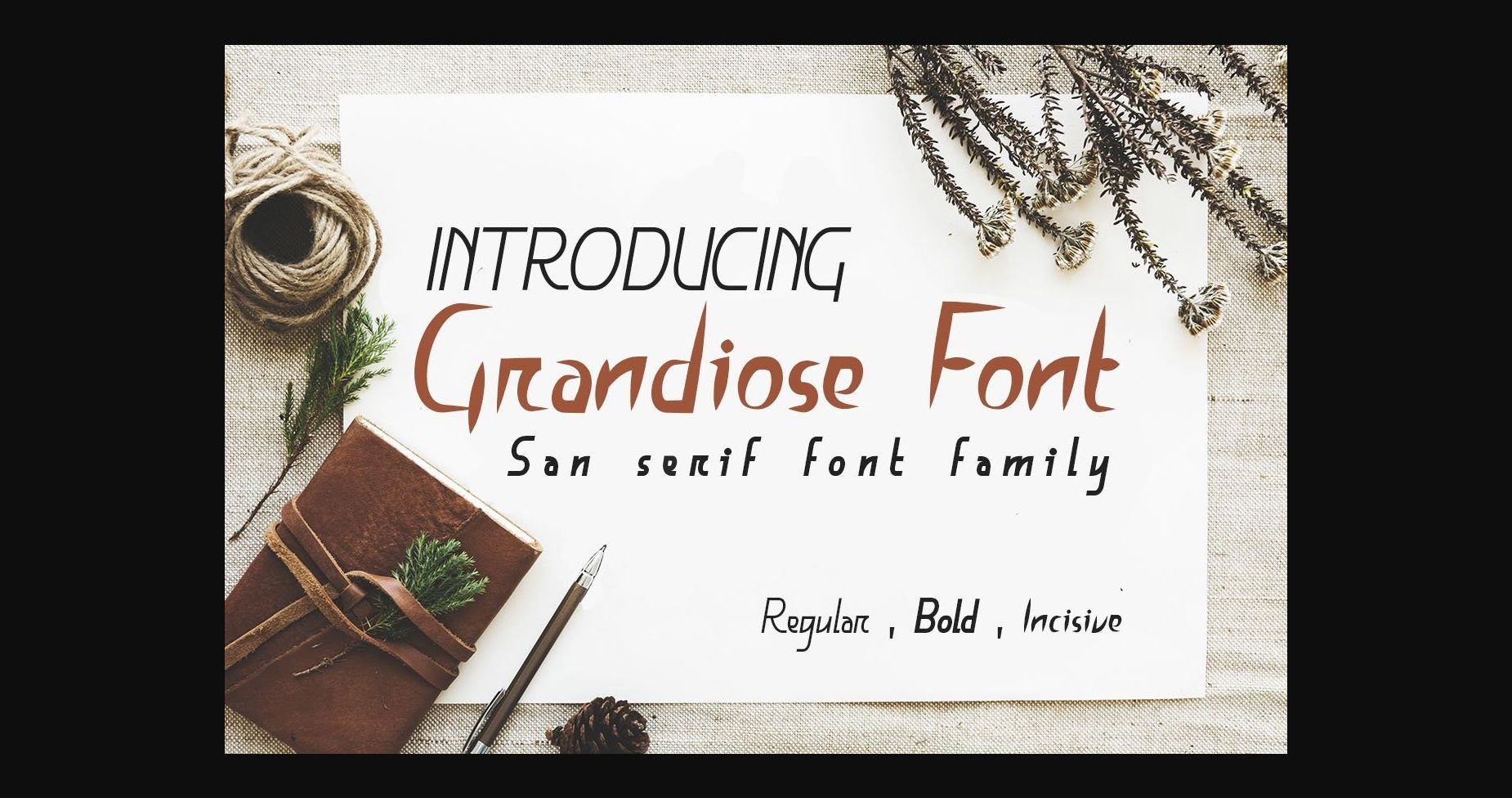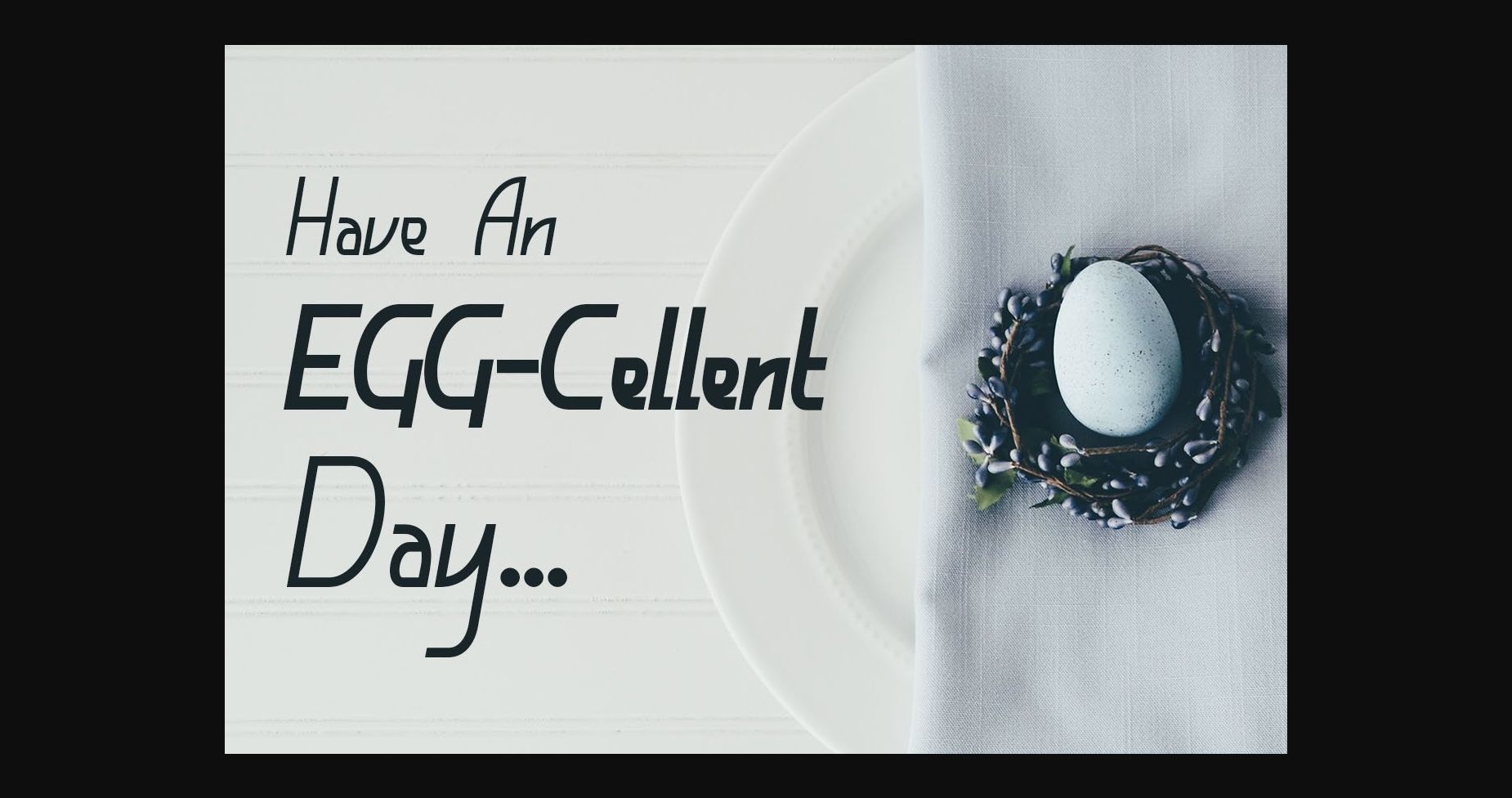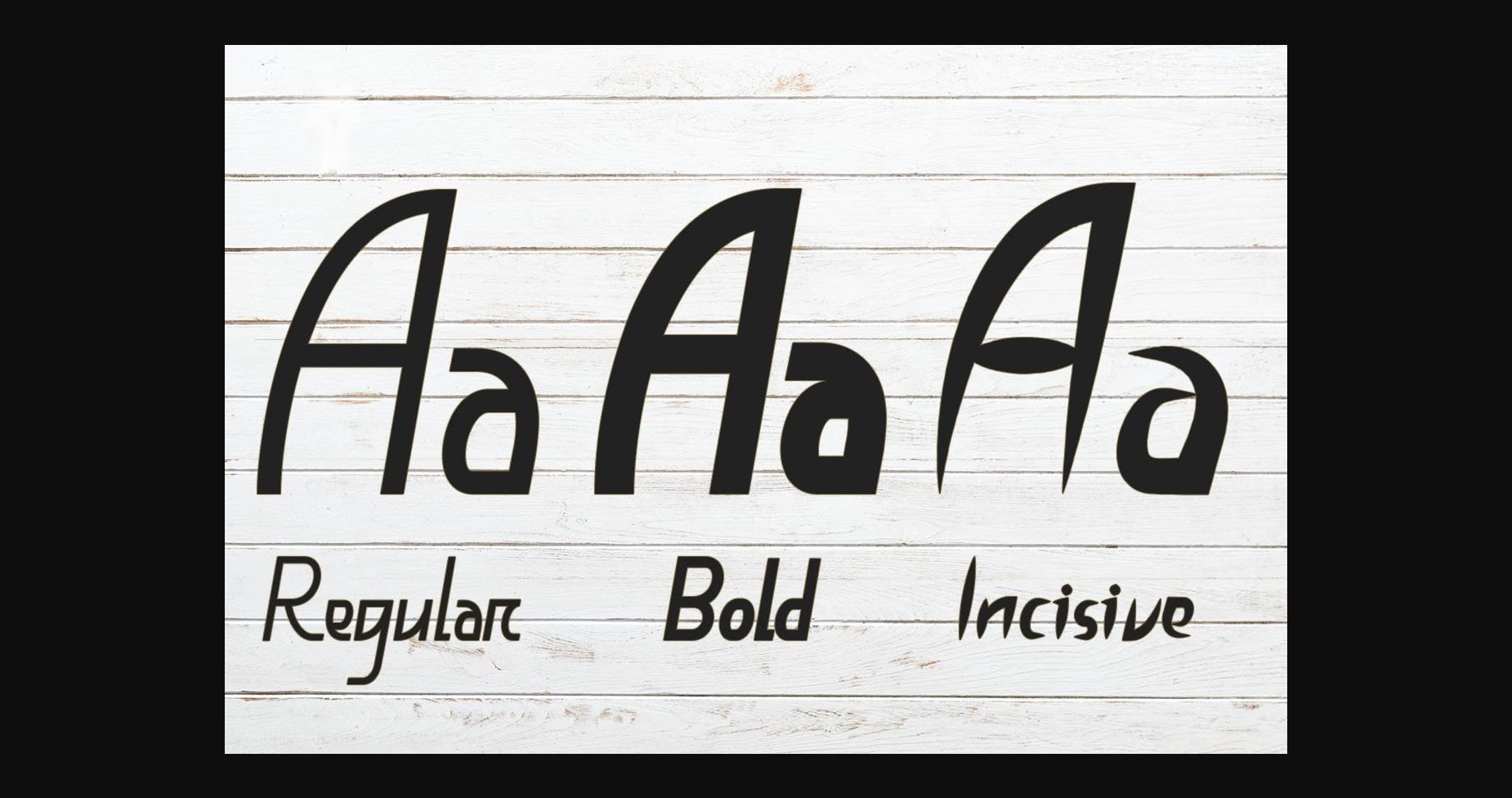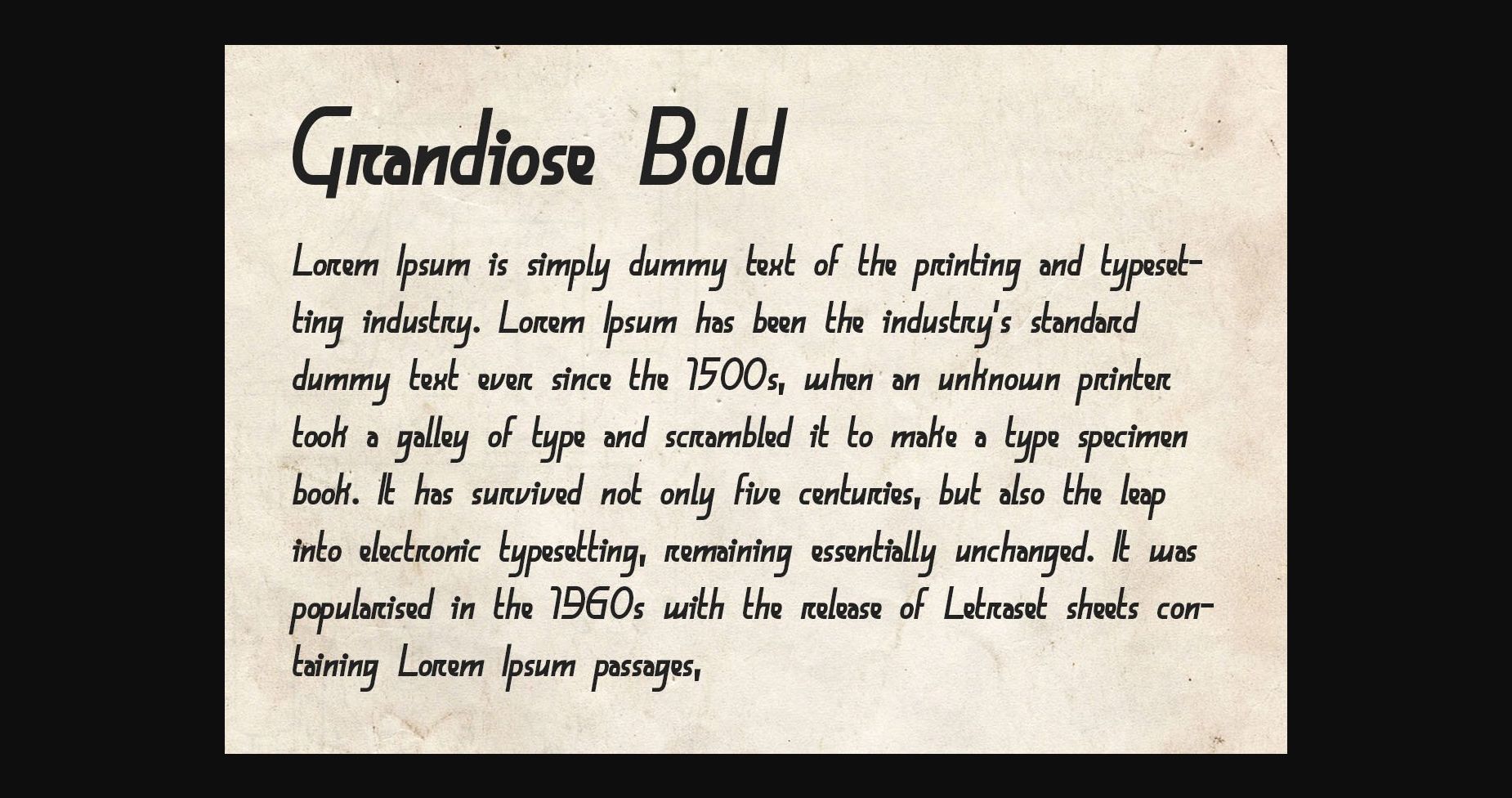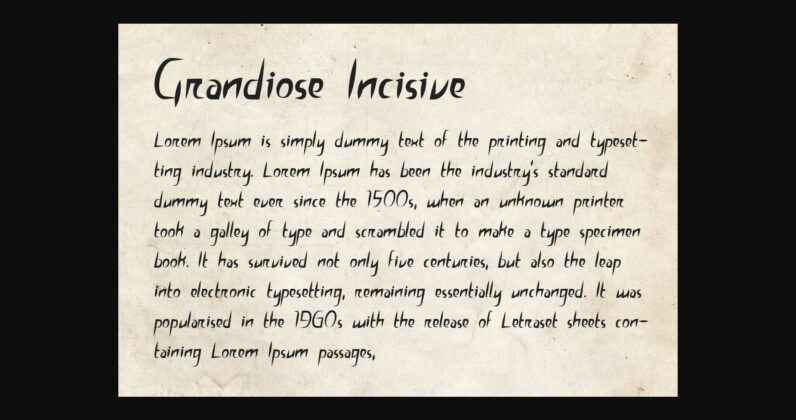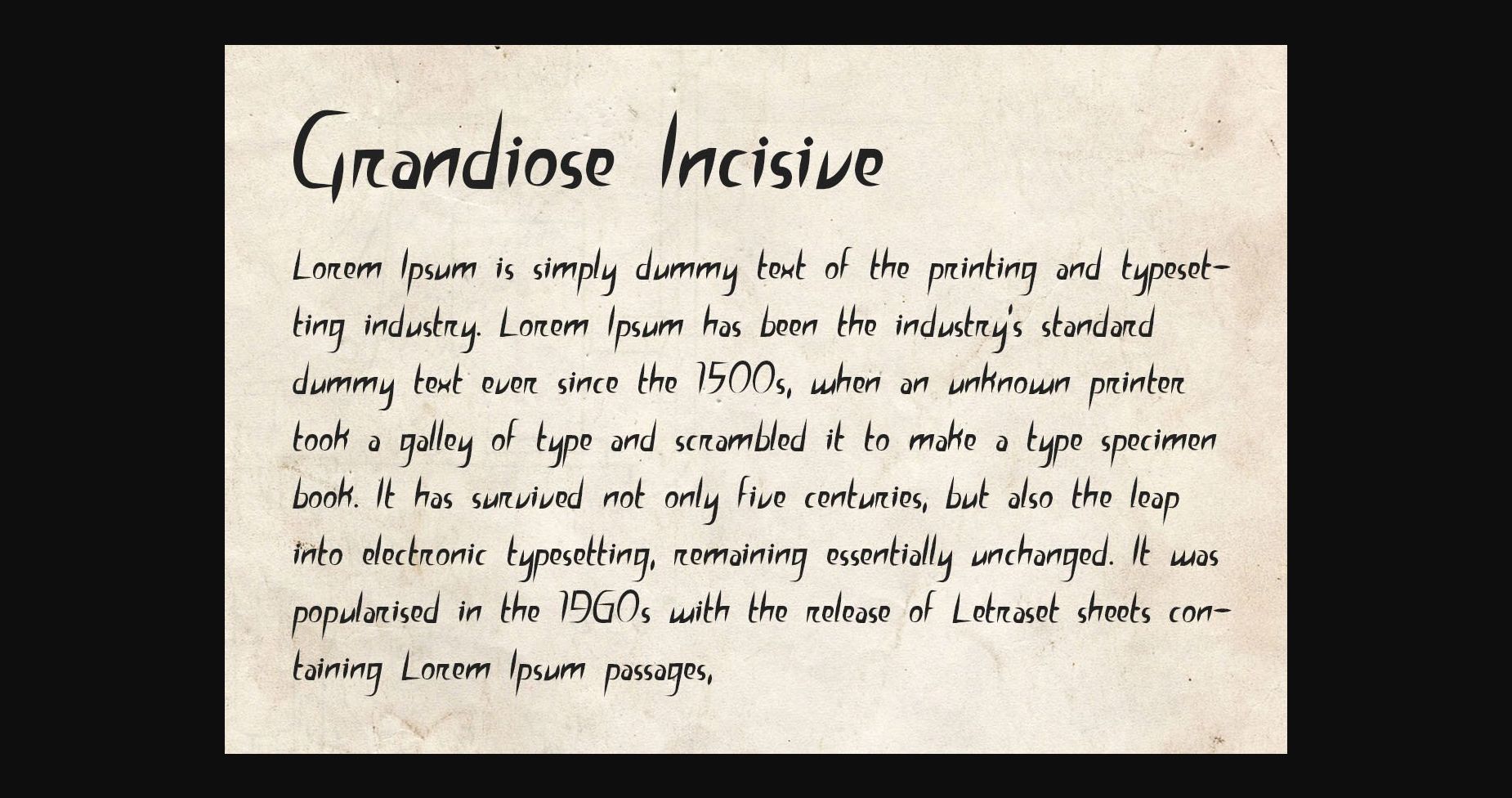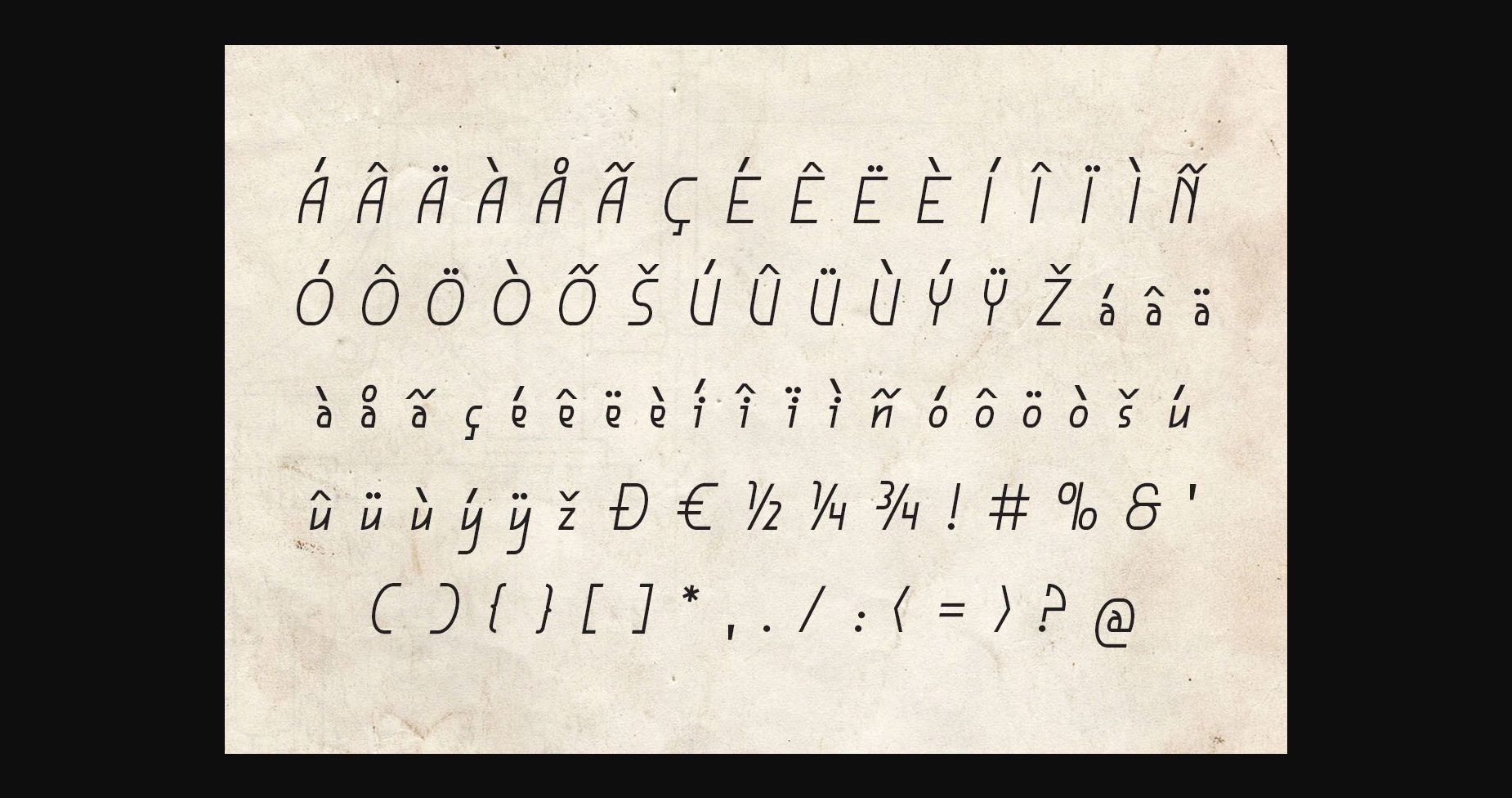
HomeSans Serif FontsGrandiose Font Sans Serif Fonts Grandiose Font FacebookXPinterestWhatsApp 1 of 11 ... Grandiose Font Poster 2... Grandiose Font Poster 3... Grandiose Font Poster 4... Grandiose Font Poster 5... Grandiose Font Poster 6... Grandiose Font Poster 7... Grandiose Font Poster 8... Grandiose Font Poster 9... Grandiose Font Poster 10... Grandiose Font Poster 11... About Grandiose Font Grandiose is a neat and interesting sans serif font. Add it confidently to your projects, and you will love the results. DOWNLOAD NOW People also explored Manhattan Font Modya Tea Font Mortised Caps Font Sweetie Darling Font Litchi Days Font Randusary Font Bonsky Font Mini Charts Font Orion Crederick Font 456 0 TagsGrandiose Font Previous articleHorn Beetle FontNext articleImagination Font LEAVE A REPLY Cancel reply Comment: Please enter your comment! Name:* Please enter your name here Email:* You have entered an incorrect email address! Please enter your email address here Website: Save my name, email, and website in this browser for the next time I comment. Personal Use Free Forturn Personal Use Free Read more about this font Fibon Personal Use Free Read more about this font Bukan Personal Use Free Read more about this font Knucklehead Personal Use Free Read more about this font BLOG Where to Buy American Fonts Online in 2024 Where to Buy American Fonts Online: The Ultimate Guide for 2024 Looking for the perfect American font to elevate your design projects? You're in the... Free Fonts Risk: Why Free Fonts Can Be Dangerous for Designers Top 7 Google Fonts Alternatives for Faster and Privacy-Friendly Web Design (2025) To increase your work productivity, choose the most readable fonts.